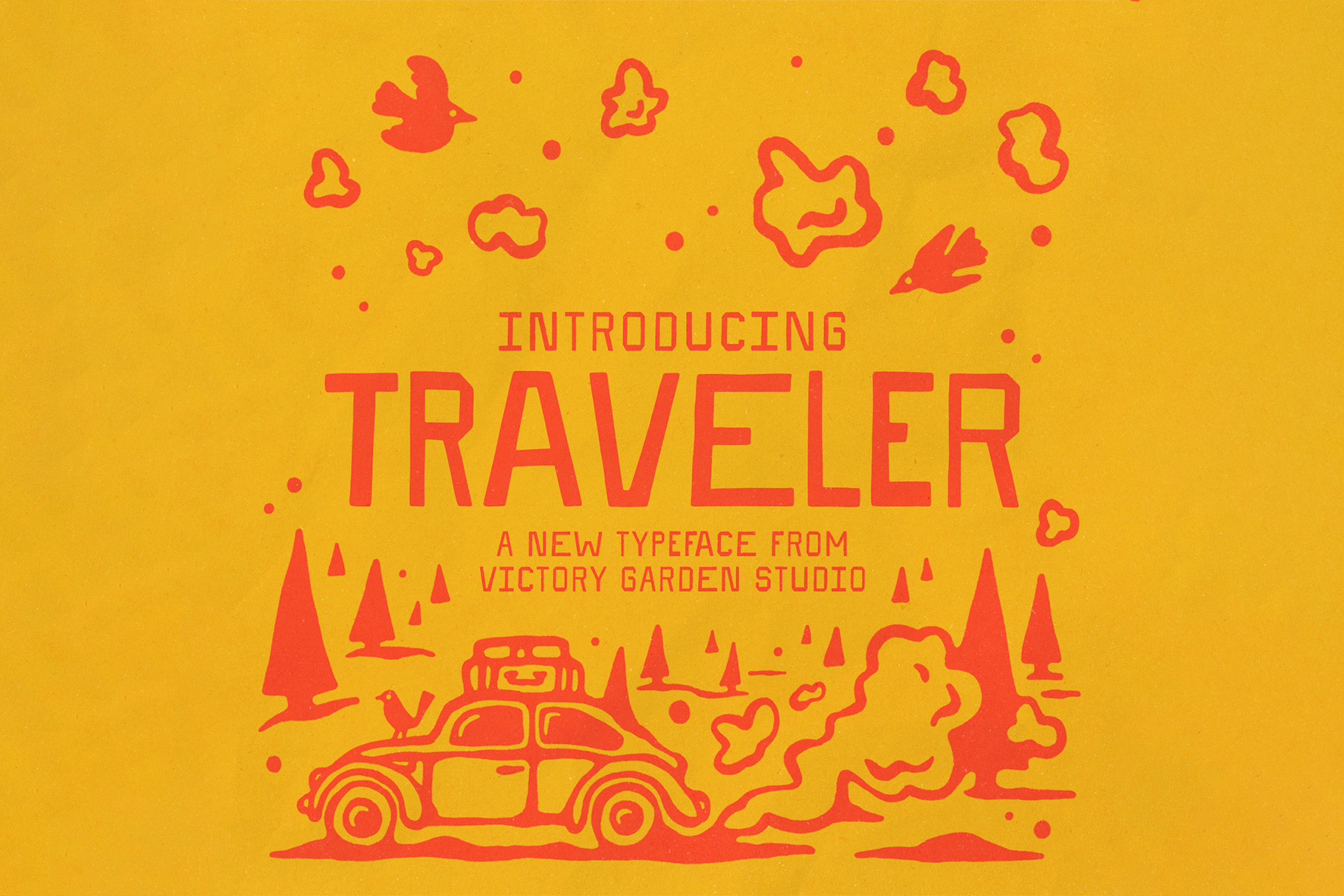
TRAVELER | Vintage Hand Drawn Font
Introducing VG Traveler!
A new title case font, inspired by vintage sports pennants and the open road. Subtle variation between capital and lowercase characters. Featuring Capital A-Z, Numbers 0-9, Punctuation, and Alternate Characters.